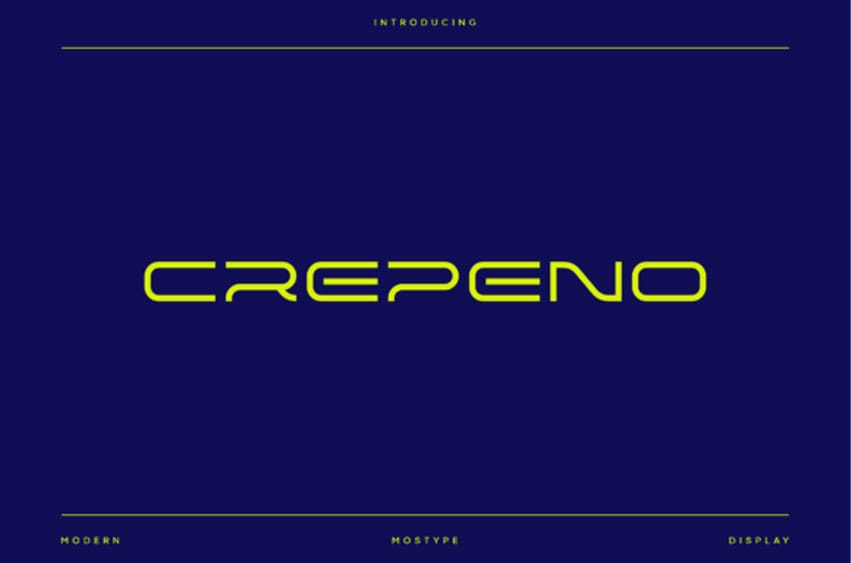
Crepeno Font is a sleek, modern display font with a clean, futuristic aesthetic designed for bold, high-impact visuals. Its smooth, geometric letterforms and streamlined curves create a perfect balance between elegance and innovation, making it ideal for branding, headlines, posters, and digital interfaces that demand a contemporary edge.
The minimalist shapes give a sense of precision and forward-thinking style, while its generous spacing enhances readability even at larger scales. Crepeno’s unique character design brings a distinctive personality to any project, whether it’s tech-oriented, fashion-forward, or creative branding.
This font thrives in settings where a refined, modern look is key, delivering a polished yet striking presence across both print and screen applications.